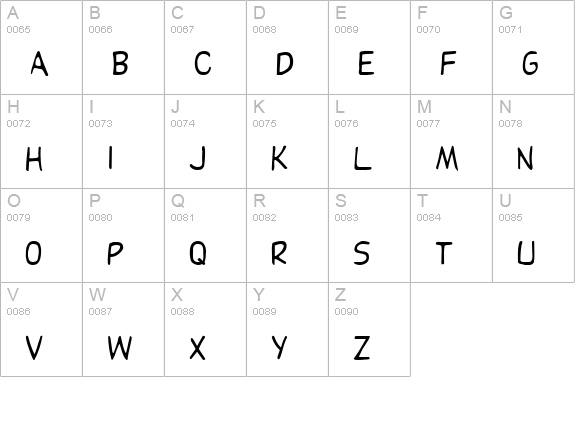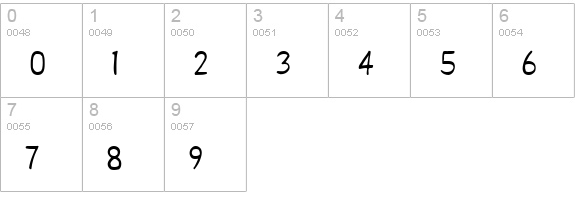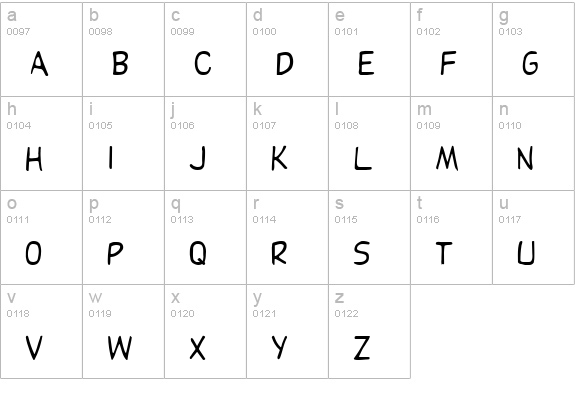
DupuyREGular Regular Font Details
DupuyREGular Regular is the standard, neutral variant in the DupuyREGular typeface family \xE2\x80\x94 well suited to general body text, paragraphs, and standard typographic work.
DupuyREGular Regular font is a versatile typeface that combines modern elegance with classic simplicity. Its clean lines and balanced proportions make it perfect for a wide range of design projects, from branding to editorial layouts. The font features a timeless appeal that exudes professionalism and sophistication. What sets DupuyREGular Regular font apart is its seamless integration of traditional and contemporary design elements. Each character is meticulously crafted to ensure legibility and visual harmony, making it a top choice for both print and digital applications. Whether you're working on a logo, website, or marketing materials, DupuyREGular Regular font offers the flexibility and versatility you need to bring your vision to life. Its subtle yet distinctive style adds a touch of refinement to any project, making it a go-to option for designers seeking a polished and polished look. Best of all, DupuyREGular Regular font is available for free download at FontsMarket.com. This means you can easily access this high-quality typeface without breaking the bank. Don't miss out on the opportunity to elevate your designs with the timeless elegance of DupuyREGular Regular font.